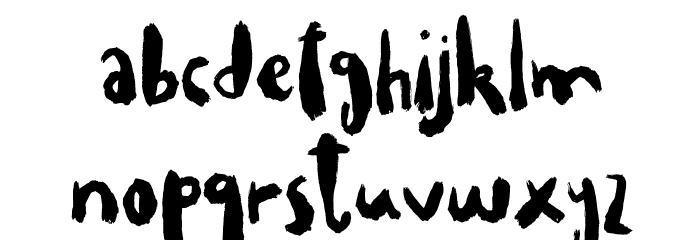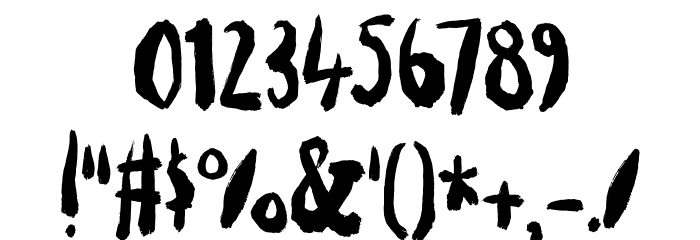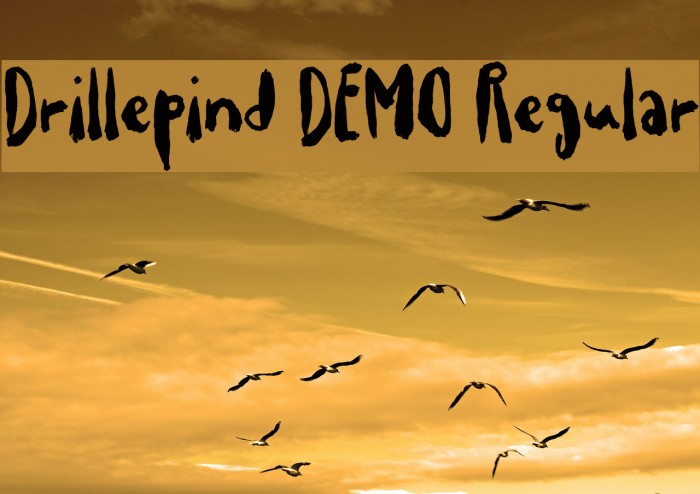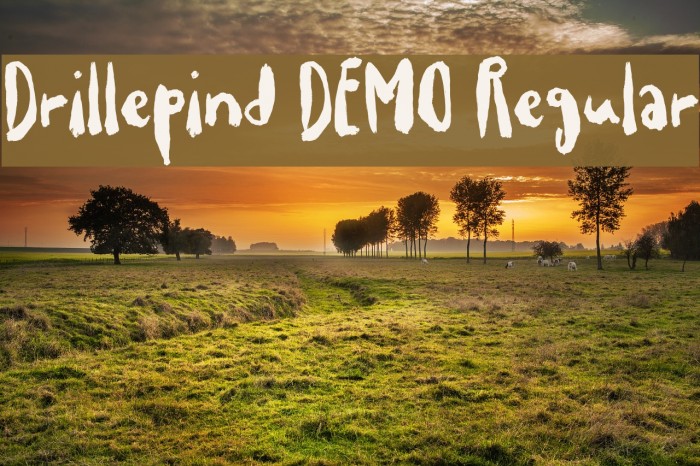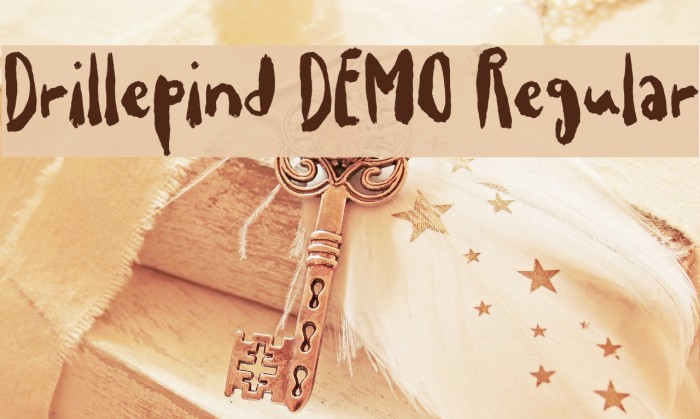
Drillepind DEMO Regular Font
This font features a bold, hand-drawn style with a rough, textured appearance. The characters are irregular and organic, giving it a unique, artistic feel. The uppercase and lowercase letters maintain a consistent style, with varying stroke widths that add to its dynamic look. The numbers and special characters follow the same aesthetic, making it cohesive across all elements. This font's distinctive style is reminiscent of brush strokes, providing a sense of movement and energy. It's ideal for projects that require a personal, handcrafted touch.
A bold, hand-drawn font with a textured, artistic style.
- Proposed Projects: Perfect for creative projects such as posters, album covers, and branding that require a personal, artistic touch.